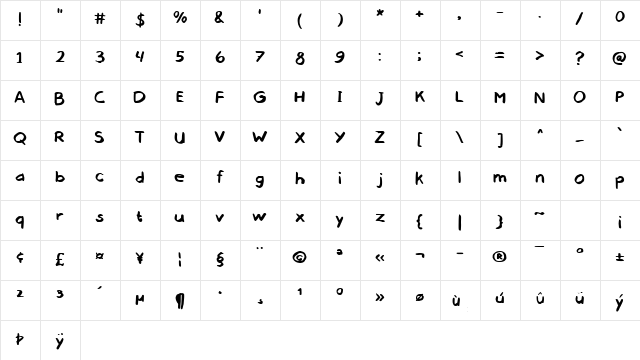
Go Baaa Handwritten Comic Regular
| Foundry | DdO Creatieve Diensten en Consultancy |
| Designer | David den Ouden |
Design Context for Go Baaa Handwritten Comic Typeface
Go Baaa Handwritten Comic has an approachable, lighthearted character — its loose, expressive forms are well-suited to children's content, casual branding, and fun-first design.
Font Pairing: Pairs well with a rounded or humanist sans for body copy, maintaining the friendly tone without relying on Go Baaa Handwritten Comic to carry extended reading.
Pro Tip: Avoid using Go Baaa Handwritten Comic for long passages of text — it works best for headlines, labels, and short calls to action.